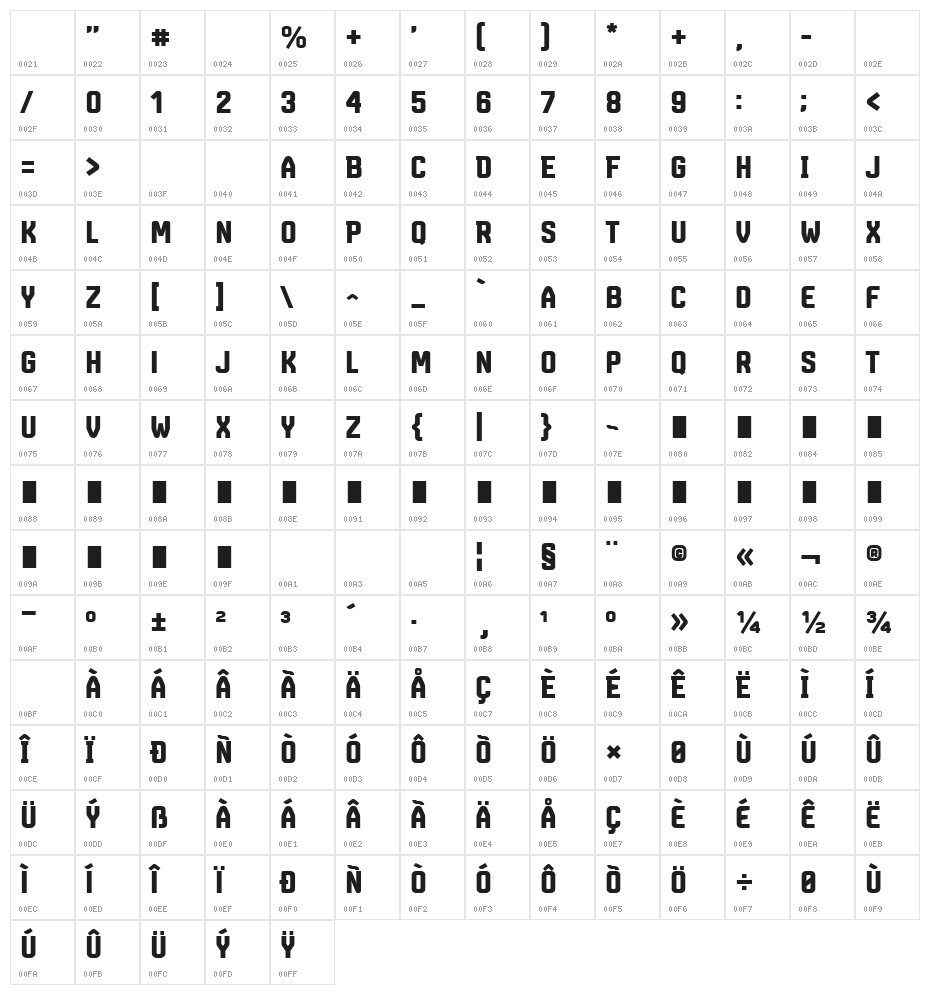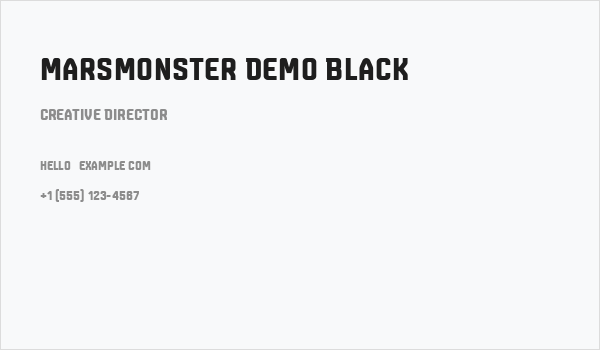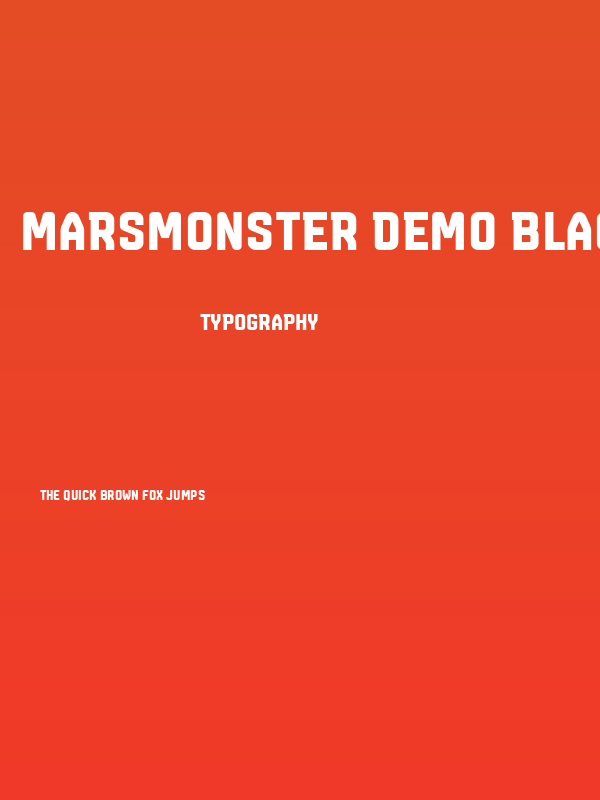
Marsmonster Demo Black Font
Marsmonster Demo Black Description
This font features bold, geometric letterforms with a strong, impactful presence. The characters are uniformly thick, with a consistent stroke width that gives them a robust and solid appearance. The uppercase letters are particularly striking, with sharp angles and clean lines that convey a sense of modernity and strength. The numbers and special characters maintain this bold aesthetic, ensuring a cohesive look across all glyphs. The font's design is straightforward yet powerful, making it suitable for applications where attention and readability are paramount.
| Proposed Projects | Ideal for headlines, posters, branding, and any project requiring a bold, impactful typeface. |